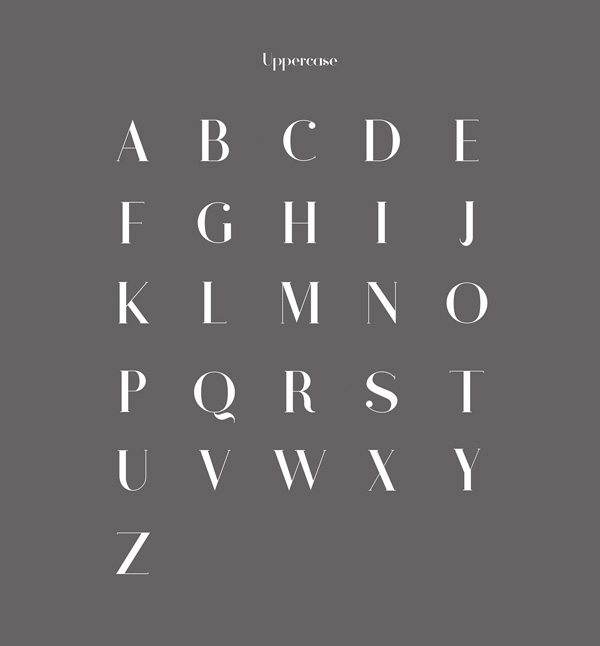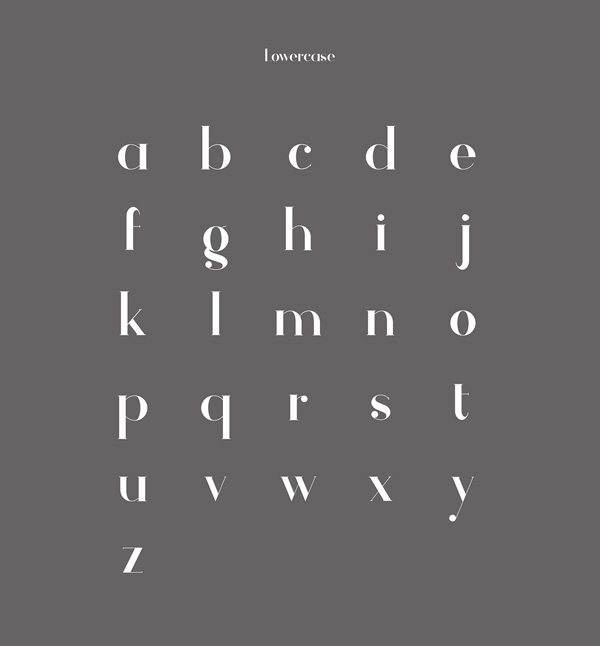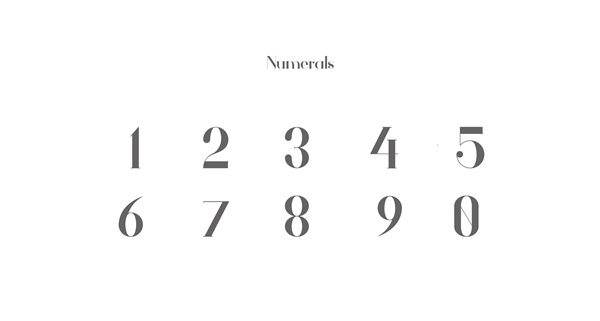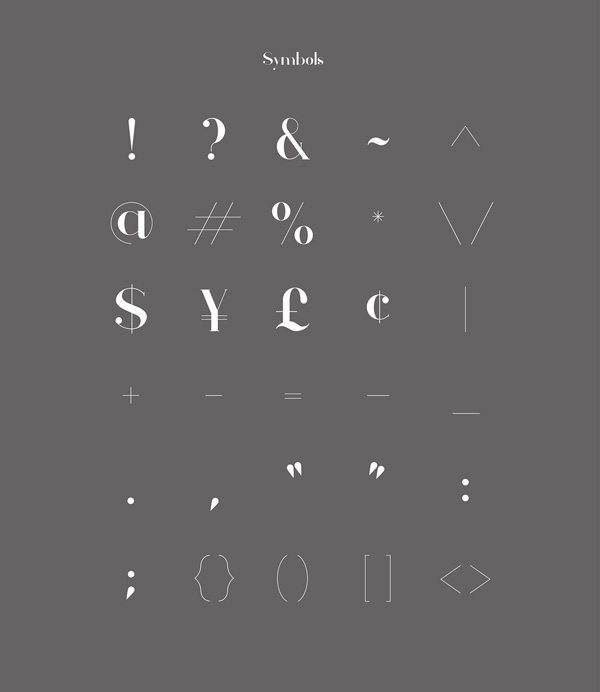
Free Font Of The Day #211 – Athene Font
Athene Font
The font is a serif typeface with some modern geometric flair. It is able to suit many applications but is most suited as a display font. It is free for both personal and commercial projects. Designed by Matt Ellis.